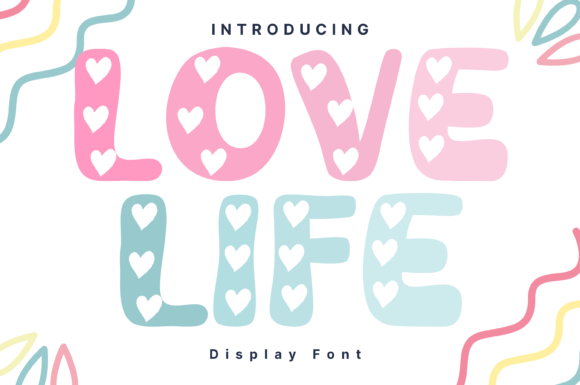
Are you tired of using the same old fonts that fail to capture the essence of your creative projects? Look no further, because Love Life Font is here to inject a dose of whimsy and fun into your designs! Created by the talented AchiArt, this display font is the perfect choice for those seeking the best fonts for body type.
Love Life Font is not your average display font. It possesses a unique charm that instantly catches the eye and adds a touch of magic to any project. Whether you are designing a lively poster, a captivating book cover, or a playful logo, this font will elevate your creations to new heights of creativity.
With Love Life Font, the possibilities are endless. Its versatility allows it to seamlessly blend into a variety of themes and styles, making it a must-have for all designers and creatives. Let your imagination run wild as you explore the numerous ways this font can transform your work and make it truly extraordinary.
But what sets Love Life Font apart from other fonts? It's not just its captivating aesthetics, but also its ability to evoke emotions and leave a lasting impression on your audience. The whimsical curves and playful strokes of each letter will captivate viewers and draw them into your message, ensuring that your design stands out from the crowd.